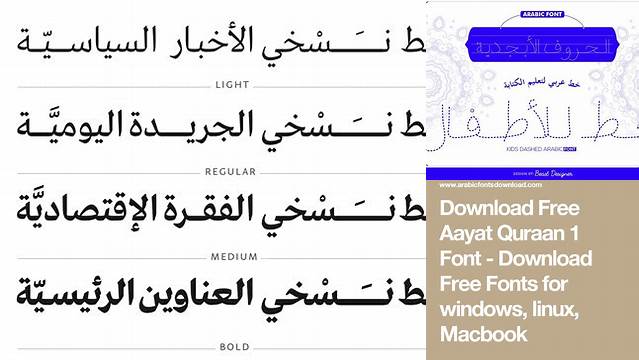
Arabic Fonts For Mac Word: Free Download Guide
Hey guys! Ever needed to type something in Arabic on your Mac using Microsoft Word and found yourself staring blankly because you don't have the right fonts? Well, you're not alone! It's a common issue, but thankfully, it's super easy to fix. This guide will walk you through how to download and install Arabic fonts so you can get your documents looking perfect. Let's dive in!
Understanding Arabic Font Compatibility
Exploring Different Styles of Arabic Fonts
Arabic fonts come in a wide variety of styles, each with its own unique look and feel. There are traditional styles like Naskh and Kufic, which are often used in formal documents and religious texts. Then there are more modern and stylized fonts that are perfect for graphic design and creative projects. Experiment with different fonts to find the one that best suits your needs. Google Fonts is a great place to explore different styles and see how they look in your documents. Don't be afraid to try something new and different! You might just discover your new favorite font. So, go ahead and explore the world of Arabic fonts and find the perfect one for your project!
Using Arabic Fonts for Specific Purposes
Different Arabic fonts are better suited for different purposes. For example, if you're writing a formal letter or academic paper, you'll want to use a traditional font like Times New Arabic or Arial Arabic. These fonts are clean, legible, and professional-looking. On the other hand, if you're designing a poster or creating a logo, you might want to use a more stylized and decorative font. These fonts can add a touch of personality and flair to your designs. Consider the purpose of your document when choosing a font. A little thought can go a long way in making your document look its best. Think about your audience and the message you're trying to convey. Choosing the right font can make all the difference!
Finding Free Arabic Fonts
Who doesn't love free stuff? Luckily, there are plenty of websites that offer free Arabic fonts for download. Google Fonts is a great place to start, as they have a wide selection of high-quality fonts that are free to use. Other websites like Fontspace and Dafont also offer a variety of free fonts. Just be sure to check the license before using a font, as some fonts might have restrictions on commercial use. But with a little searching, you can find plenty of beautiful Arabic fonts without spending a dime. So, get out there and explore the world of free fonts!
Purchasing Premium Arabic Fonts
If you're looking for something extra special, you might want to consider purchasing premium Arabic fonts. Premium fonts often have more features and higher quality designs than free fonts. They might also come with a commercial license, which allows you to use them in your projects without restriction. Websites like MyFonts and Fontshop offer a wide selection of premium Arabic fonts. While they might cost a bit more, the investment can be well worth it if you're looking for a truly unique and professional look. Consider premium fonts for those important projects where you want to make a statement!
Final Thoughts on Downloading Arabic Fonts for Mac Word
So, there you have it! Downloading and using Arabic fonts on your Mac with Microsoft Word is totally doable. Just remember to find reputable sources, install the fonts correctly, and play around with the formatting until you get it just right. With a little practice, you'll be creating beautiful Arabic documents in no time. Good luck, and have fun! Now go forth and create something amazing!